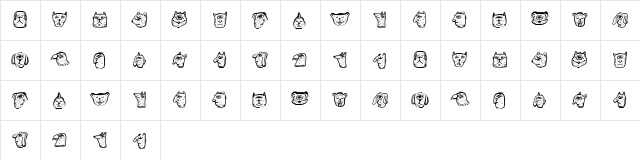
Menge Regular Font Preview
Menge Regular
Menge Regular Font Details
Design Context for Menge Typeface
Menge is a composed and adaptable typeface that performs quietly and consistently across a wide range of design contexts.
Pro Tip: Pair Menge with a font of contrasting weight or personality to build a more expressive typographic hierarchy.